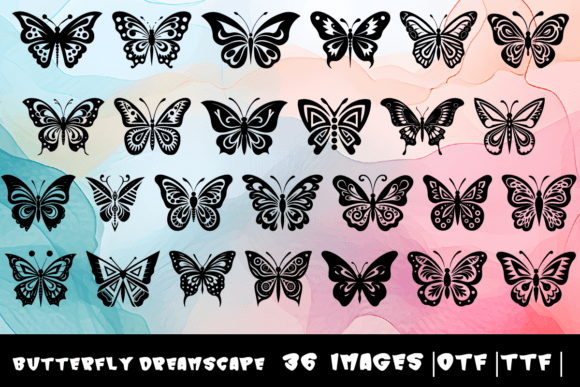
The Enchanting World of Butterfly Dreamscape Font
Have you ever been working on a design project, and suddenly, you’re struck by a creative block? You’re not alone! I recall a recent experience where I was tasked with creating a whimsical wedding invitation. My client wanted a font that would transport their guests to a magical world, and I was determined to find it. That’s when I stumbled upon Dingbats Fonts’ Butterfly Dreamscape – a captivating typographic journey that intertwines elegance with nature’s whimsy.
A Closer Look at Butterfly Dreamscape
Butterfly Dreamscape is more than just a font – it’s an experience. With 26 exquisite letters and the enchanting number 10, this font takes you on a spellbinding flight through a dreamscape of delicate butterflies. Each character is meticulously crafted to evoke a sense of ethereal beauty, making it perfect for projects that demand a touch of enchantment.
So, what do I love about Butterfly Dreamscape? Here are a few highlights:
• ✨ Elegant and whimsical design that’s perfect for creative projects
• ✅ Meticulously crafted characters that evoke a sense of ethereal beauty
• 🌟 Perfect for designs that require a touch of nature and magic
However, I did notice a few small quirks:
• ⚠️ Limited character set, which may not be suitable for extensive text-based projects
• 🤔 Some characters may require manual kerning for optimal results
The Designer Inspiration Behind Butterfly Dreamscape
The story behind Butterfly Dreamscape is one of passion and creativity. According to the designer, the font was inspired by the beauty of nature and the magic of butterflies. The designer wanted to create a font that would capture the essence of these enchanting creatures and bring a touch of whimsy to design projects.
What is Butterfly Dreamscape font? Butterfly Dreamscape is a captivating typographic journey that intertwines elegance with nature’s whimsy, featuring 26 exquisite letters and the enchanting number 10.
What is Butterfly Dreamscape best used for? Butterfly Dreamscape is perfect for projects that demand a touch of enchantment, such as wedding invitations, branding, and packaging design.
In conclusion, Butterfly Dreamscape is a unique and captivating font that’s perfect for designers, crafters, and creative hobbyists looking to add a touch of enchantment to their projects. With its elegant and whimsical design, this font is sure to transport your designs to a magical world.